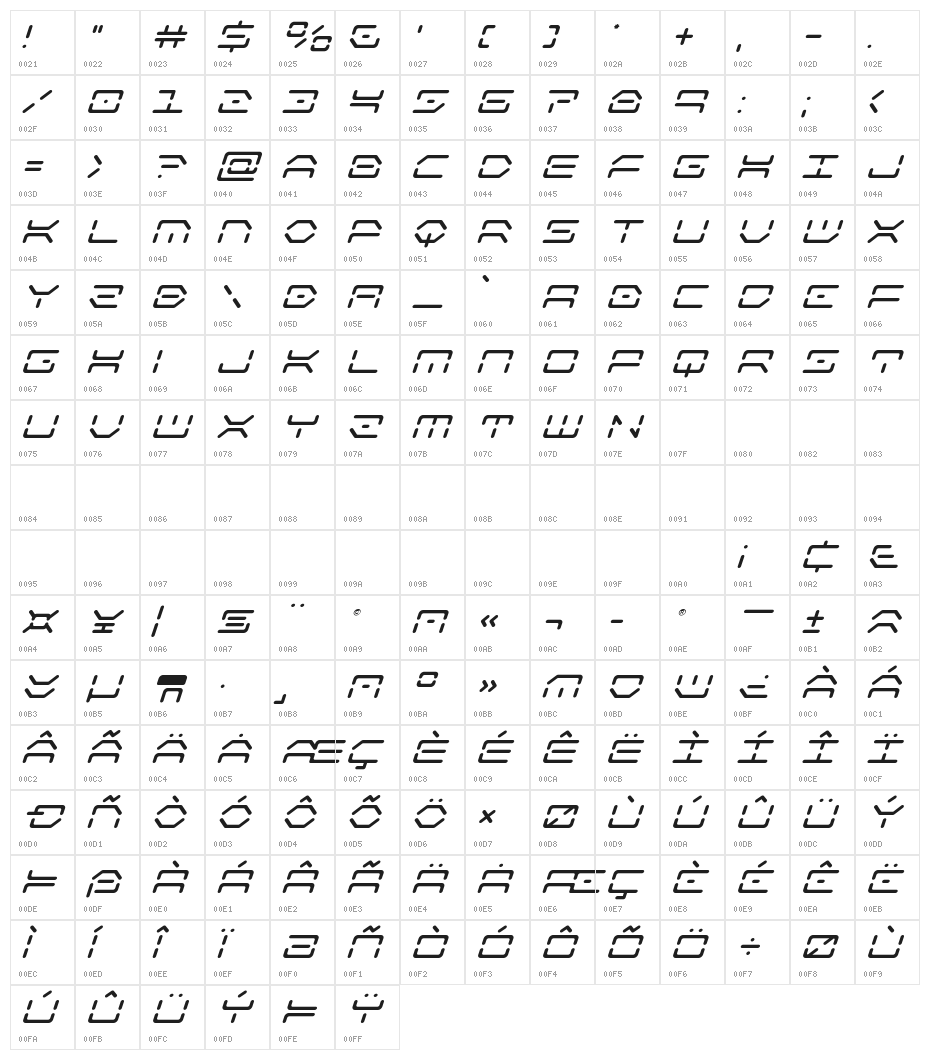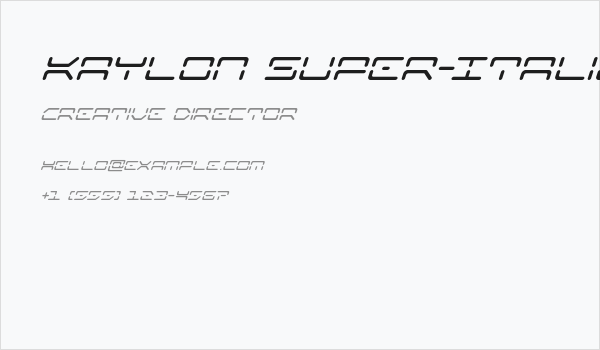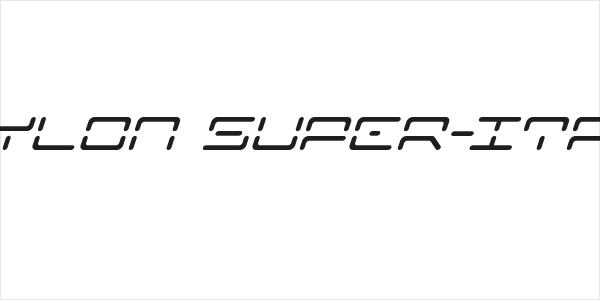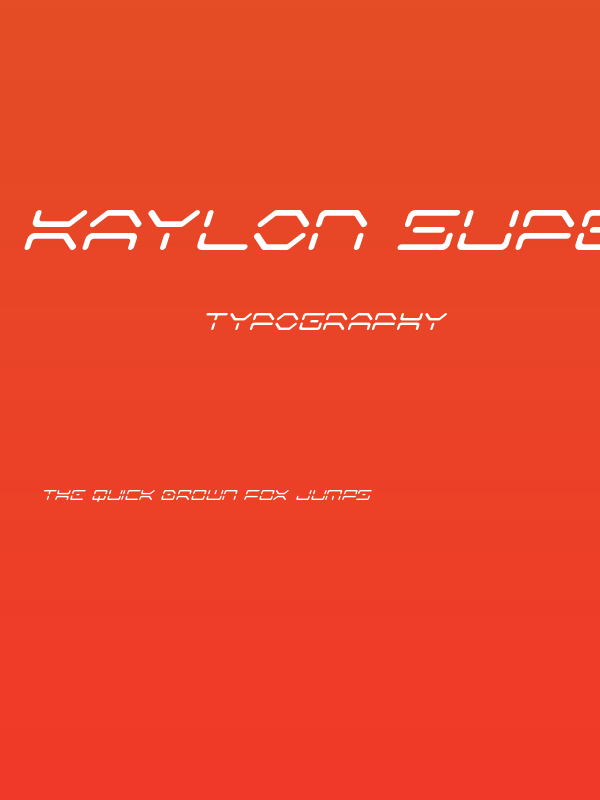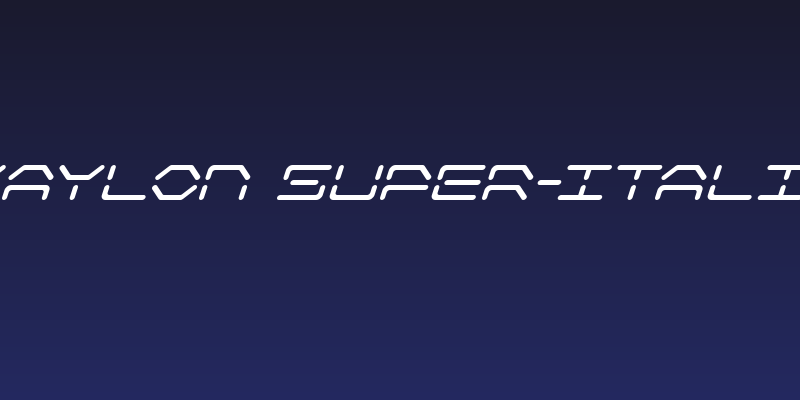
Kaylon Super-Italic Font
Kaylon Super-Italic Description
This font features a futuristic and geometric design with a distinct italic slant, giving it a dynamic and forward-moving appearance. The characters are composed of bold, angular lines with rounded corners, creating a unique blend of sharpness and softness. The uppercase and lowercase letters maintain a consistent style, with the lowercase slightly smaller in height. Numbers and special characters follow the same design principles, ensuring uniformity across the font. The overall look is modern and tech-inspired, making it suitable for projects that require a sleek and innovative aesthetic.
| Proposed Projects | Ideal for technology branding, sci-fi themed designs, video game interfaces, and modern advertising. |